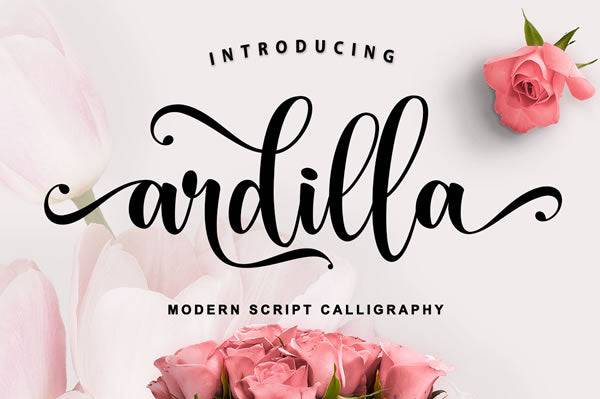
Ardilla Font for Crafting, Logos and Print Projects
This download features a stylish script font with flowing, cursive forms ideal for creative projects that require elegance and personality. Ardilla is perfect for crafting, logo design, invitations, and printable media. As a font entity, it offers a handwritten aesthetic with professional consistency—suitable for use across cutting machines, digital editors, and print platforms. In addition to its versatile applications, this font can easily be paired with the arizona tumbleweed font for crafts, creating a harmonious blend of styles that enhances any project. Whether you're designing personalized gifts or unique home decor, the combination of these fonts will bring an artistic flair to your work. Elevate your creative endeavors with this elegant typographic duo, ensuring every piece stands out boldly. Whether you're designing wedding invitations or creating unique greeting cards, this font elevates any project with its artistic flair. Additionally, it serves as an ideal arual font for crafting projects where you want to make a lasting impression. Its versatility and charm make it a favorite among designers and crafters alike, ensuring that your work stands out beautifully.
Ardilla blends script warmth with production usability, making it a great choice for creators who want to elevate their typography without sacrificing clarity or scalability.
- Custom logos, product labels, and packaging
- Printable invitations, quotes, and signage
- Vinyl decals and heat transfer graphics
- Scrapbooking elements and personal messages
- Social media templates and website headers
- Elegant script with natural, flowing motion
- Perfect for cutting machines, printables, and logos
- Balanced spacing and refined letterforms
- Works in both digital and physical design projects
| Font Style | Handwritten script, modern and fluid | Casual calligraphy | Bold brush script |
| Top Use Cases | Crafting, branding, printables | Wedding designs | Social graphics |